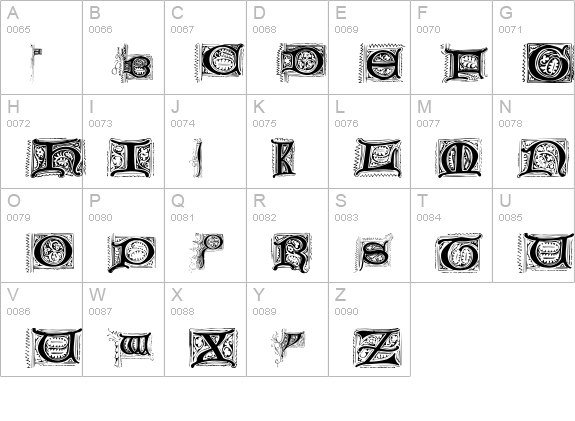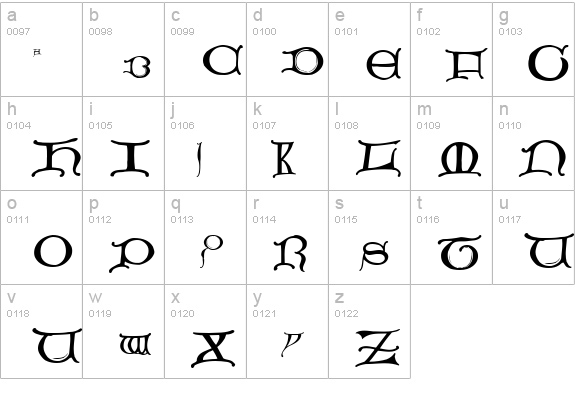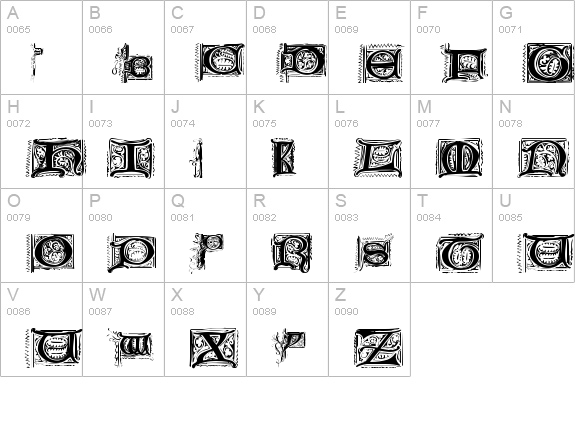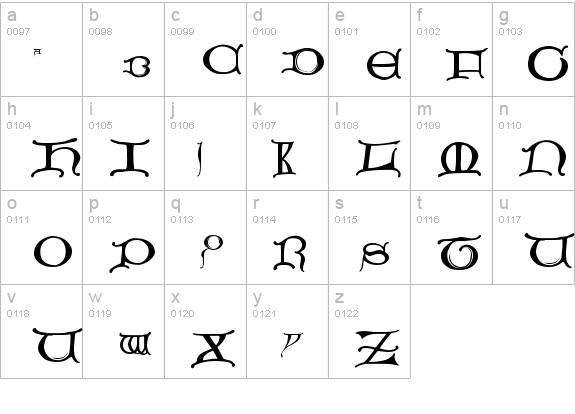
Manuscript Caps HPLHS Font Details
Introducing Manuscript Caps HPLHS font, a captivating and elegant typeface that effortlessly combines the essence of timeless script with a touch of modern sophistication. This meticulously crafted font captures the artistry and grace of calligraphy, making it the perfect choice for those seeking to add a touch of elegance to their designs. Manuscript Caps HPLHS font features beautifully designed capital letters, meticulously hand-drawn to perfection. Every stroke and curve exudes a sense of refinement and delicacy, making this font a true work of art. Its versatile nature allows it to be used in a variety of design projects, from wedding invitations and logos to book covers and beyond. But what truly sets Manuscript Caps HPLHS font apart is its accessibility. We believe that creativity should be free, and that's why we are thrilled to offer this stunning font as a free download on FontsMarket.com. Now, designers and creatives from all walks of life can enhance their projects with this exquisite typeface without any barriers. Whether you are a seasoned graphic designer or a budding artist, Manuscript Caps HPLHS font enables you to express your unique vision and make a lasting impression. Its timeless beauty and effortless elegance will elevate any design, leaving a lasting impact on your audience. Download Manuscript Caps HPLHS font today from FontsMarket.com and embark on a journey of creativity and inspiration. Let this font be your companion in creating beautiful, captivating designs that leave a lasting impression. Experience the freedom of expression that Manuscript Caps HPLHS font offers and unlock the true potential of your artistic endeavors.